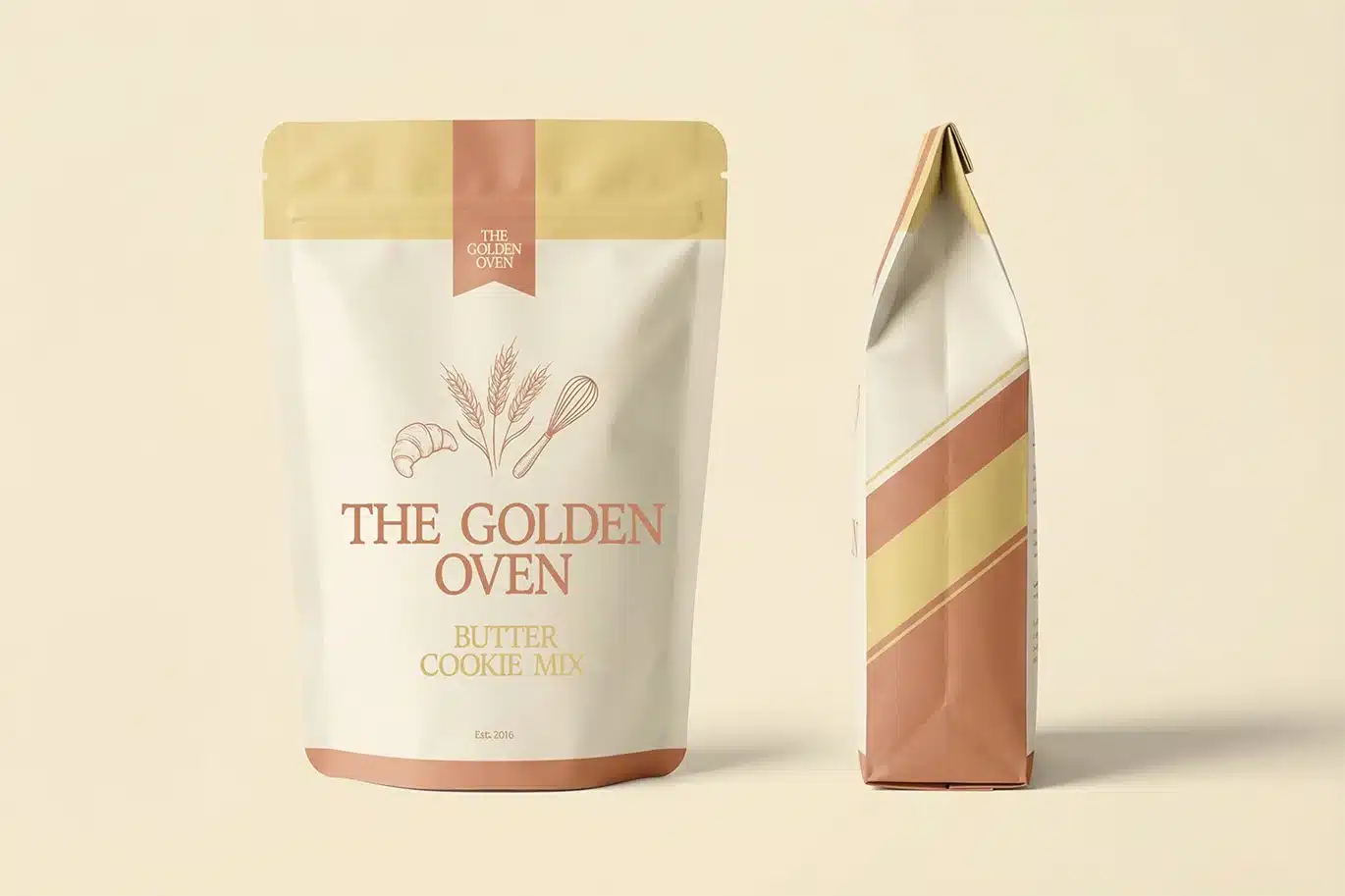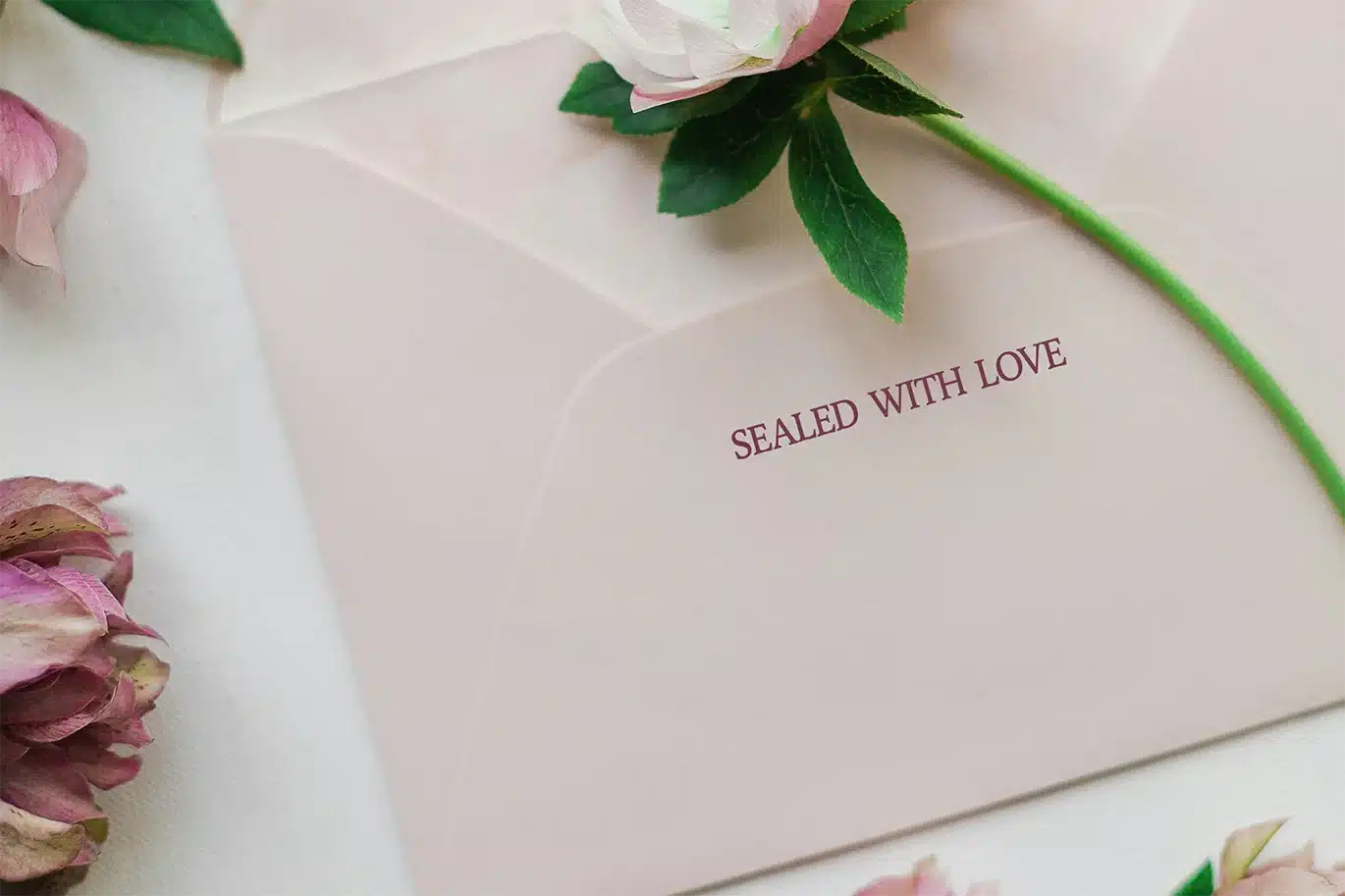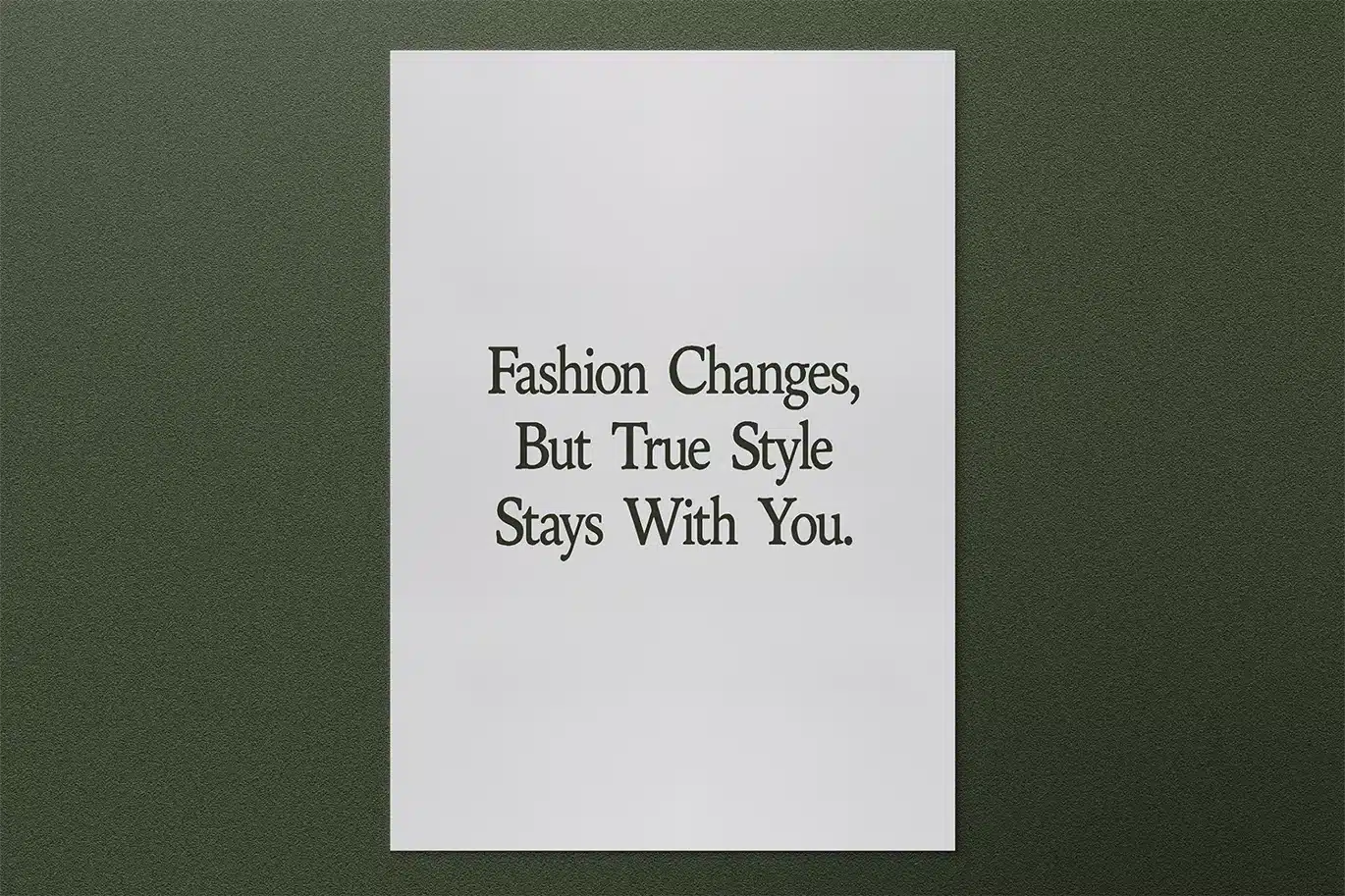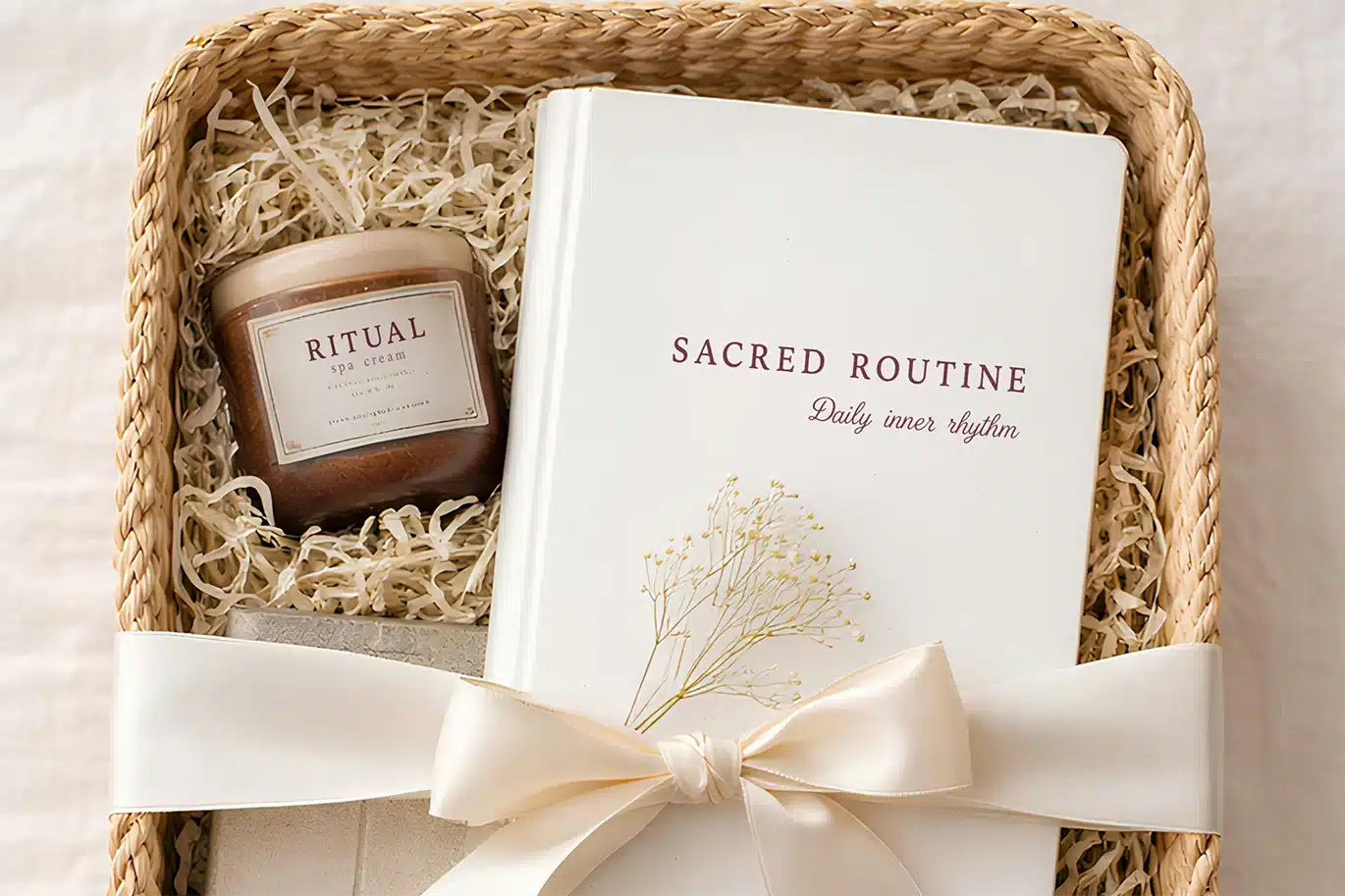
Vintage Serif Font
Marlowe is a vintage serif font with an elegant editorial feel, perfect for branding, logos, packaging, invitations, labels, and poster design.